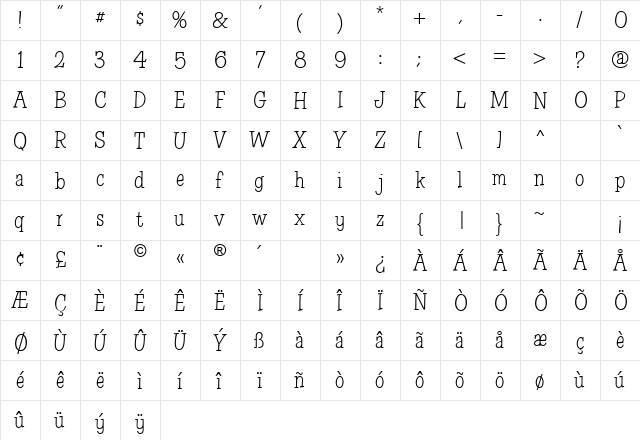
CAC One Seventy Regular Font Preview
CAC One Seventy Regular
Design Context for CAC One Seventy Typeface
CAC One Seventy offers clean, dependable letterforms without strong stylistic allegiance, making it a practical choice for designers who need flexibility.
Pro Tip: Use CAC One Seventy in both headline and body roles to test its range before committing to a single application.